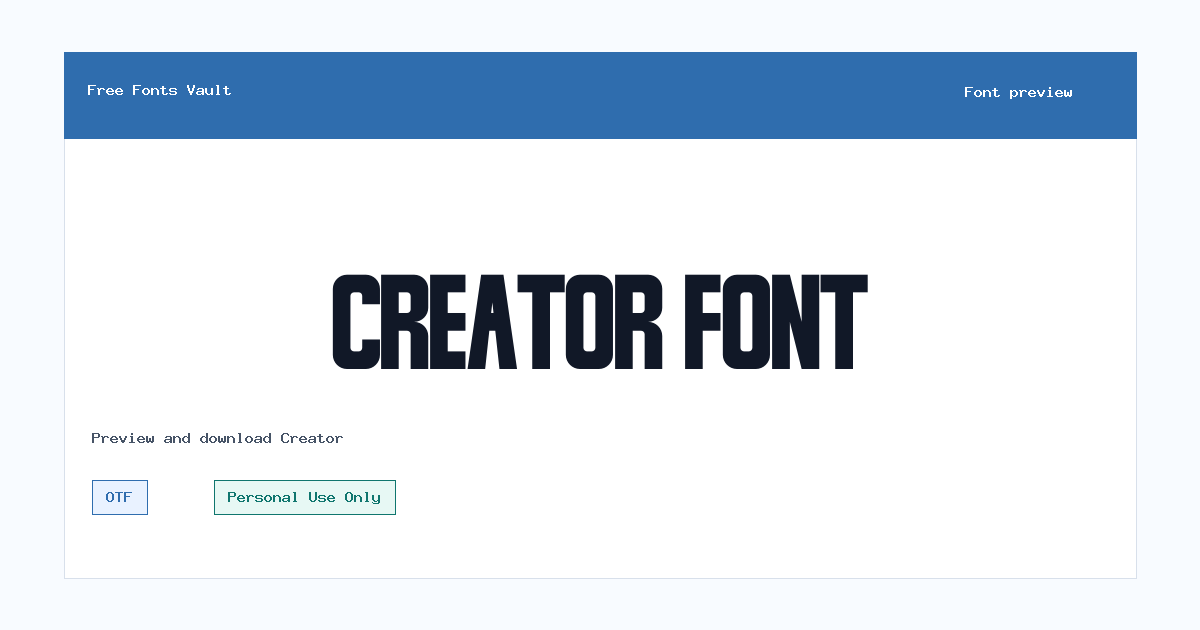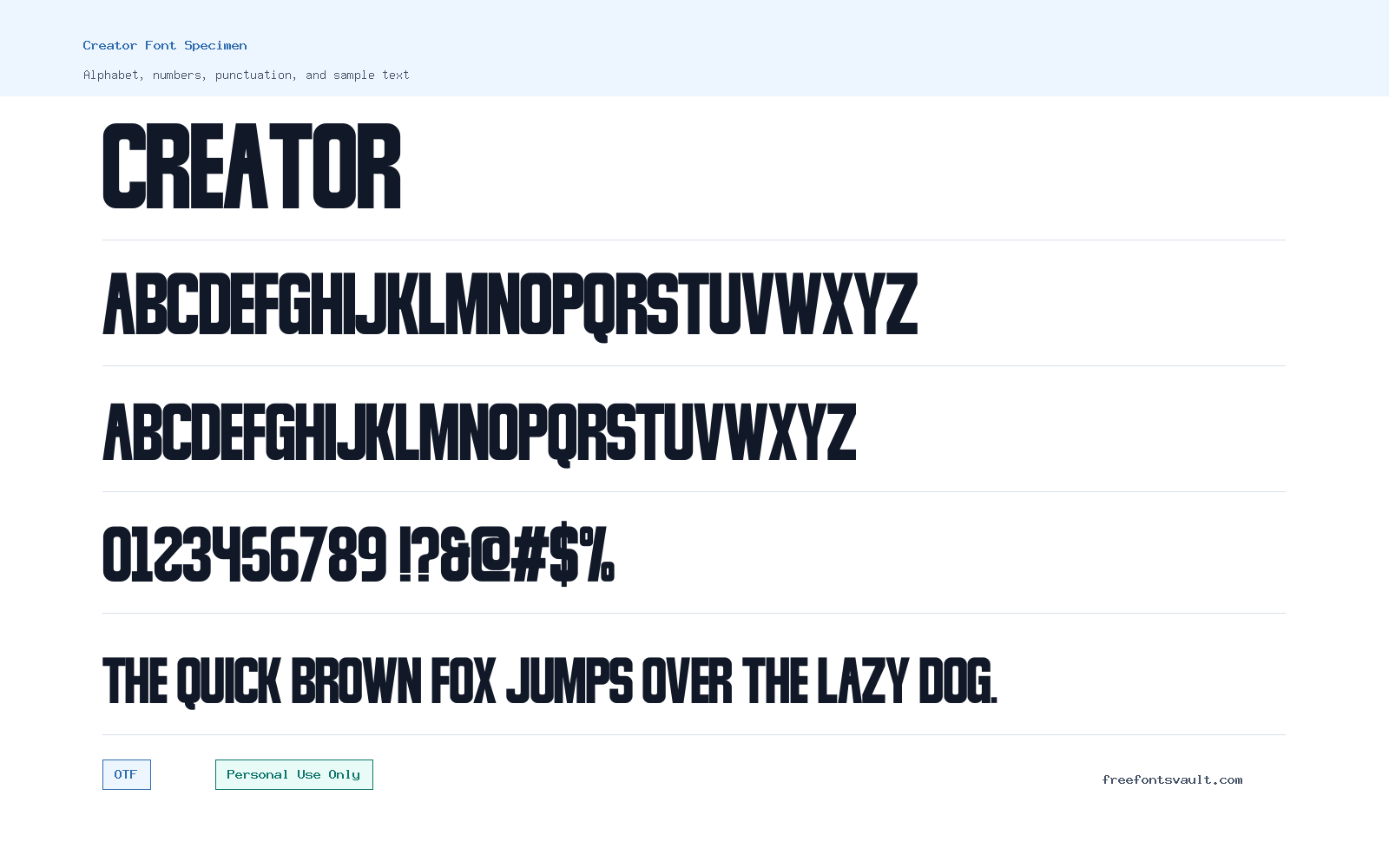
Creator
Creator Font
Creator font.
Creator is a sans serif font family with a regular OTF file for personal-use projects. It is a practical choice to test when you need clean lettering for short titles, simple graphics, or casual design drafts.
About Creator Font
Creator is listed as a sans serif font by Lovian JK, with Funtype Co. named as the foundry. The downloadable file is an OTF regular style with normal weight, so it is best approached as a single-style display or text option rather than a full multi-weight type system. Because there is only one listed variant, it works best when the design does not need bold, italic, condensed, or extended styles.
• Sans serif design in a regular OTF file
• Single normal-weight style suited to simple previews and personal design work
• Useful for testing short headings, names, labels, and clean graphic text
• Works best when the project does not require a full family with bold or italic styles
• Personal posters, quote graphics, and social media images
• Simple logo drafts or name treatments for non-commercial testing
• Headings, labels, thumbnails, and short display text
• Design mockups where a clean sans serif style is needed
What is Creator best for?
It is best tested for personal-use graphics, short headings, labels, simple layouts, and design drafts where one clean sans serif style is enough.